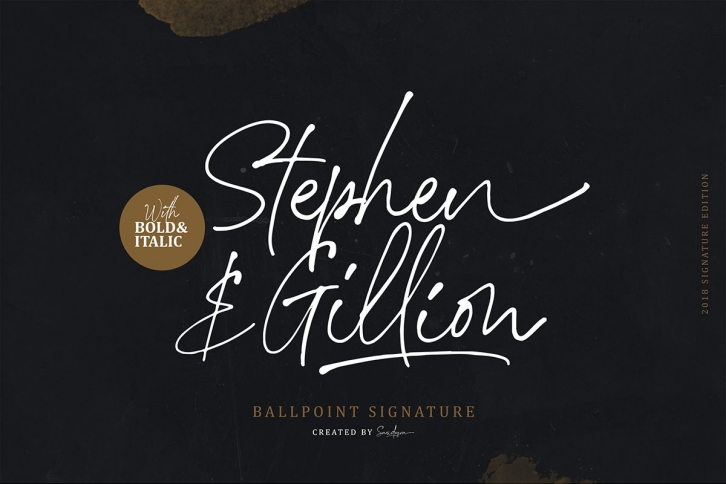
Stephen & Gillion is a gorgeous font that was realeased on February 12, 2021. The font can be used in many style contexts and design environments. Perfect for invitations, magazines, websites, logos, and more! It was designed by Saridezra and the file size is 8.33 MB. Thanks for checking out this font!